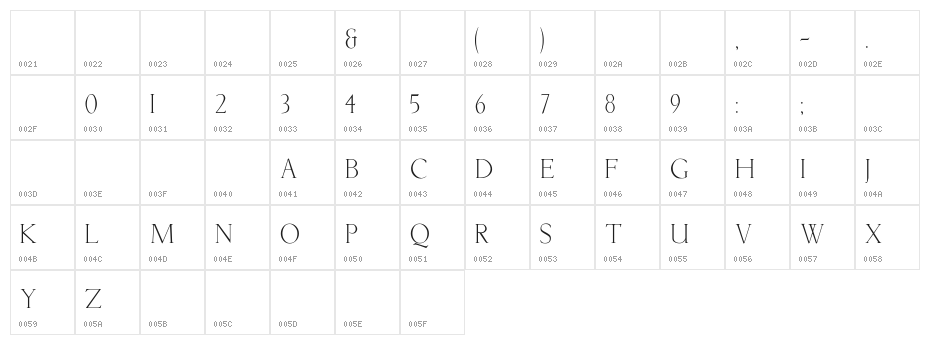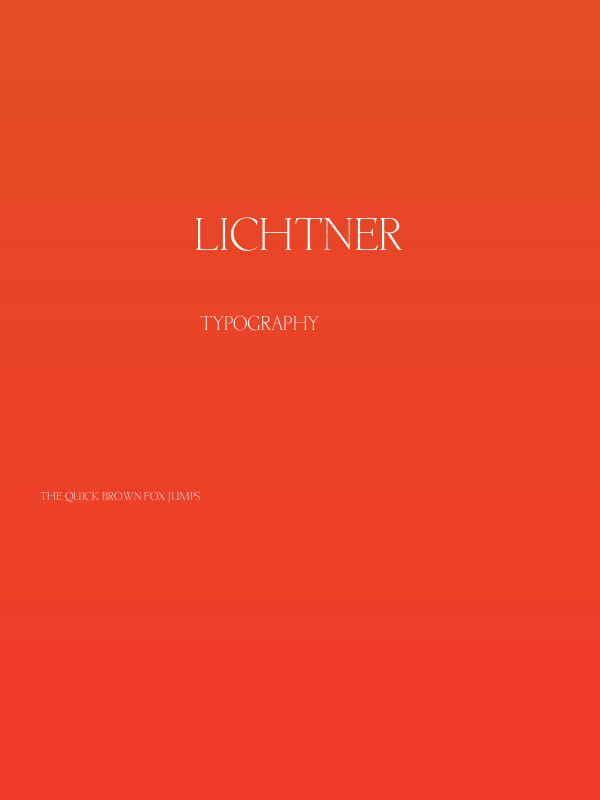
Lichtner Font
| Categorías | Modern |
| Estilo general | Classic |
| Caso de uso | Headlines, Logos, Editorial design |
| Proyectos propuestos | Ideal for use in luxury branding, editorial design, wedding invitations, and high-end product packaging. |